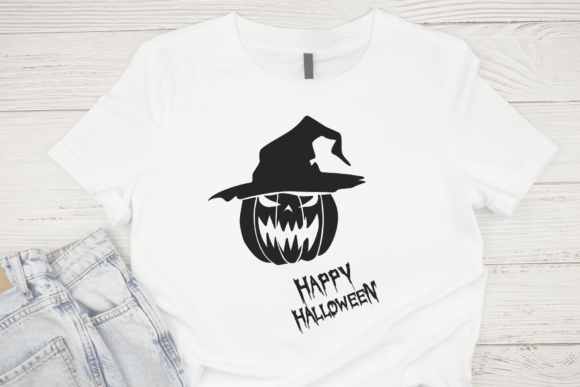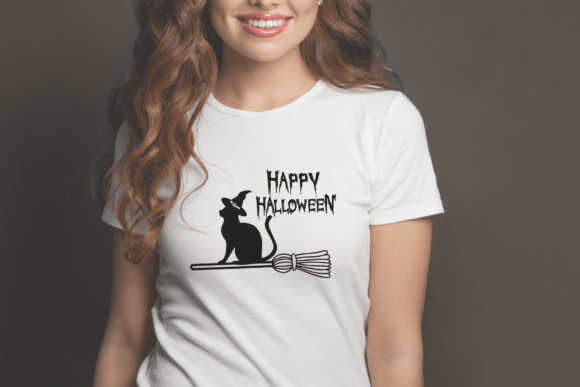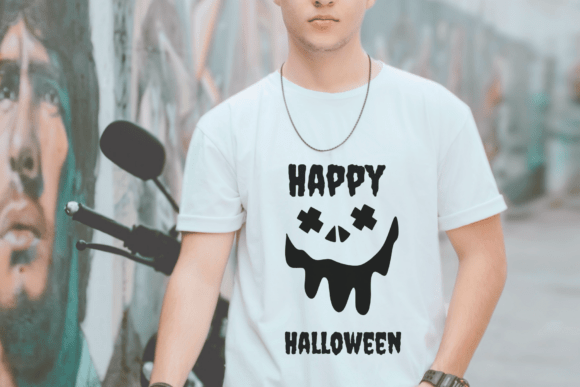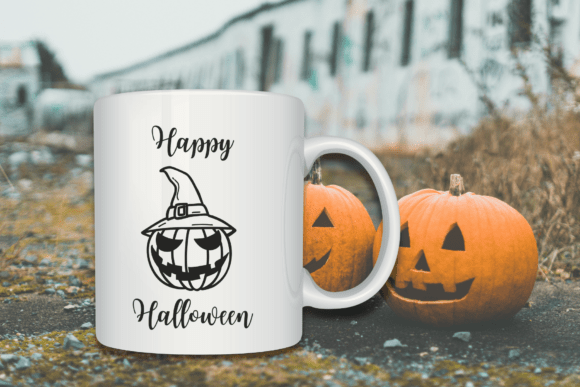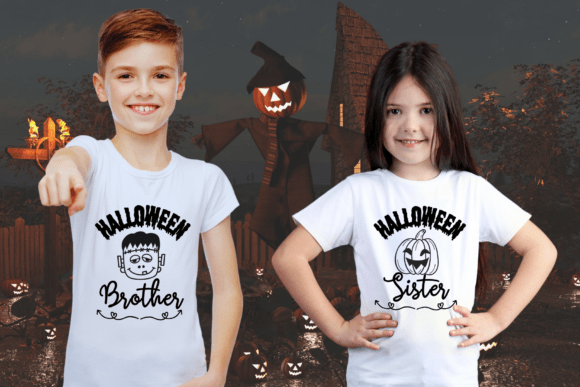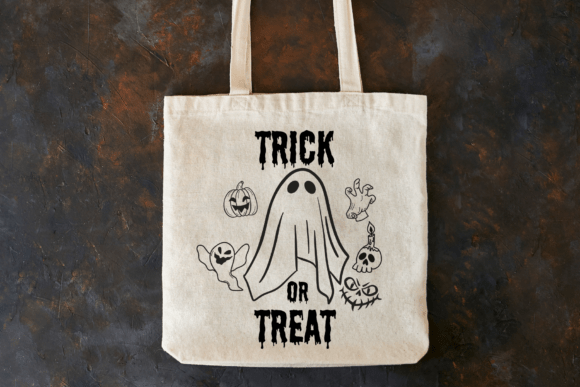
The Spooky Season is Here: Get Creative with Halloween Doodle Font
As the leaves start to fall and the pumpkins begin to glow, designers and crafty enthusiasts alike start to feel the excitement of the spookiest time of the year. For many of us, Halloween is more than just a holiday – it’s a chance to unleash our creativity and let our imagination run wild. Whether you’re planning a spooky party, creating handmade cards for friends and family, or designing a haunted-themed website, you need the perfect font to set the mood.
Enter the Halloween Doodle Font, a delightful and eerie typeface that’s perfect for adding a touch of Halloween magic to your designs. This charming doodle font is filled with hand-drawn illustrations of ghosts, bats, and other creepy creatures, making it the perfect addition to any Halloween-themed project. With the Halloween Doodle Font, designers can bring a unique and festive vibe to their work, making it a valuable tool for anyone looking to create spooky yet stylish designs.
Halloween Doodle Font Key Features
- Unique Cartoonish Style: The Halloween Doodle Font features a playful, hand-drawn design that’s perfect for adding a spooky yet whimsical touch to your designs.
- Character Set: The Halloween Doodle Font includes a wide range of characters, including uppercase and lowercase letters, numbers, punctuation marks, and special symbols.
Halloween Doodle Font Review
Overall, I’m really impressed with the Halloween Doodle Font. It’s perfect for adding a playful, spooky touch to your Halloween-themed designs. ✨ The font’s whimsical illustrations of pumpkins, ghosts, and bats are sure to bring a smile to your customers’ faces.
The font’s versatility is also a major plus. You can use it for a variety of projects, from party invitations to social media graphics. And with over 300 glyphs, you’ll have plenty of options to choose from.
- Playful, spooky illustrations
- Versatile for various design projects
- Over 300 glyphs to choose from
- Perfect for Halloween-themed designs
- Only suitable for Halloween-themed designs (may not be useful for other projects)
- Some glyphs may be too simplistic or lacking in detail
- Not ideal for serious or formal designs
Overall, I’d give the Halloween Doodle Font 4 out of 5 stars. It’s a fun and playful addition to any designer’s toolkit, but may not be the best choice for every project. ✨
The Halloween Doodle Font is perfect for creating spooky and playful designs for Halloween-themed projects. Use it for invitations, posters, and social media graphics.